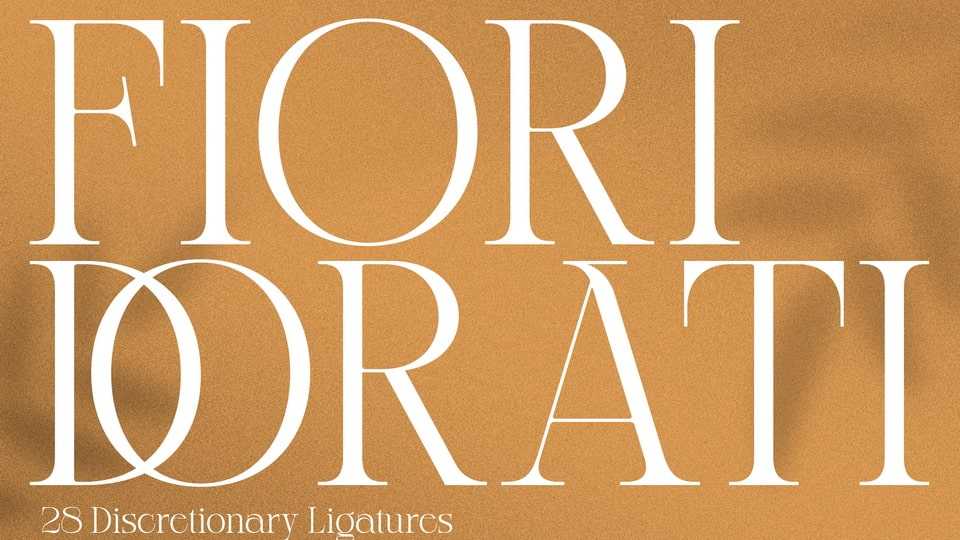
Download Fiori Dorati font, an absolutely elegant serif typeface. Fiori Dorati will elevate a wide range of crafting ideas, from cards to branding, labels, and more.
Designer: SIGN Studio